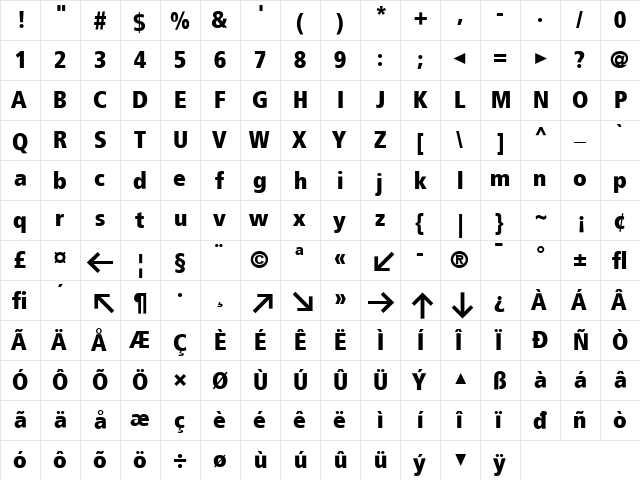
TransitFront Bold
| Foundry | BVG und MetaDesign published by FontShop International |
Design Context for TransitFront Typeface
TransitFront is a composed and adaptable typeface that performs quietly and consistently across a wide range of design contexts. The heavy weight commands attention and anchors typographic hierarchies.